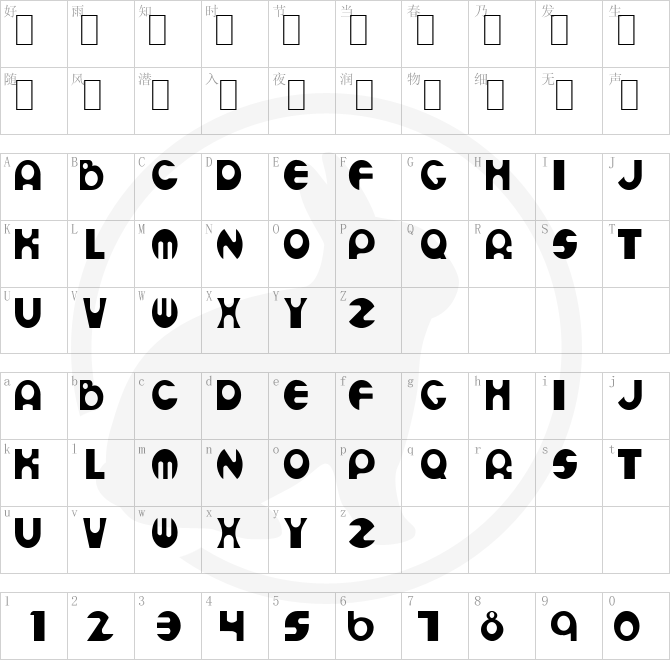
- Font Name:Lady 1
Lady-1.ttf is a very beautiful artistic font, Lady-1.ttf is widely used in the design and printing of various books and pictures,Lady-1.ttf has a strong visual impact,Lady-1.ttf is a commonly used font in newspapers, magazines and books, and is used in posters, e-commerce Poster design, store design, logo design, font design and other fields.Lady-1.